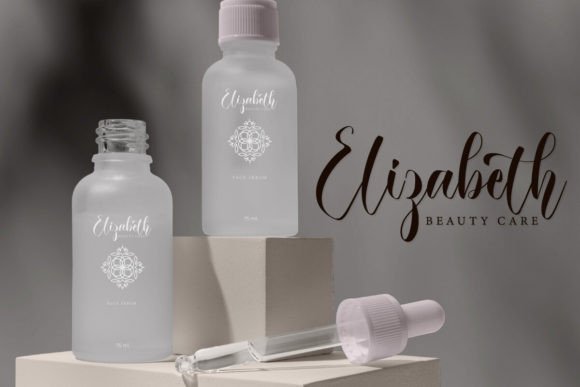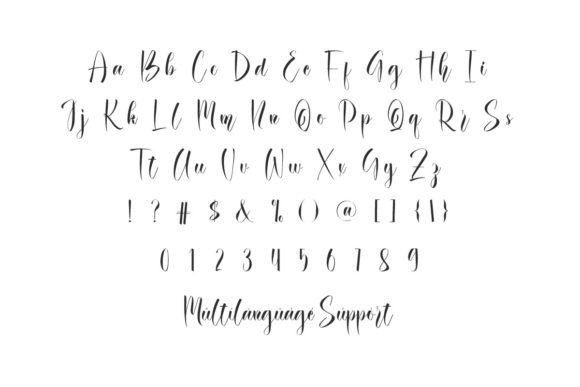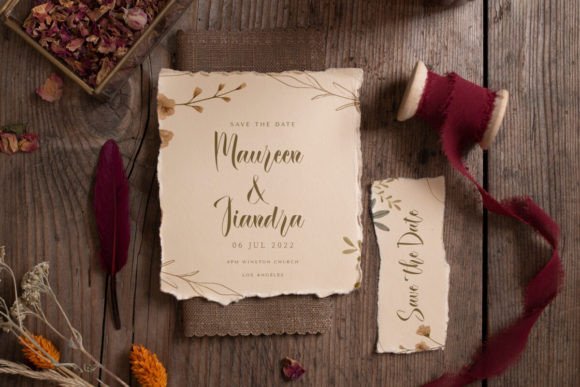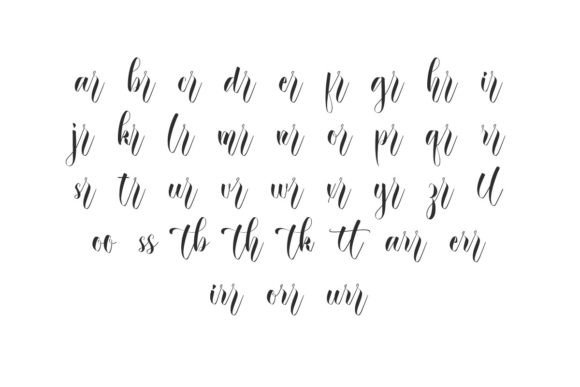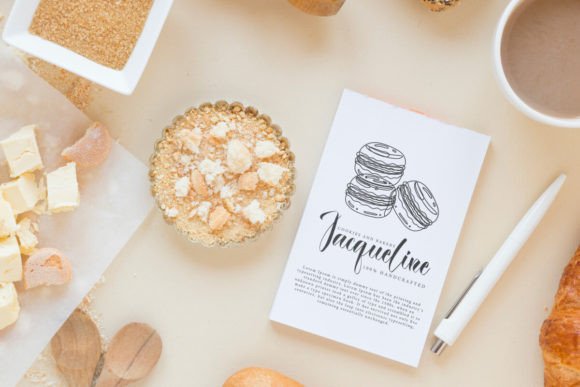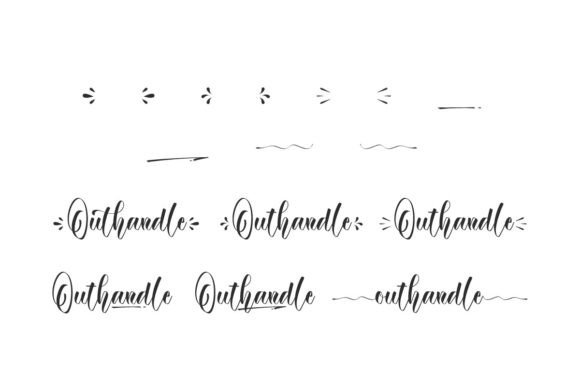
Introduction to Outhandle Font
The moment you’re searching for the perfect font to elevate your creative project is a crucial one. You want a design resource that will make your work stand out, evoke emotions, and leave a lasting impression. As you browse through countless options, you stumble upon Outhandle Font – a stunning calligraphy script font that will capture your attention and inspire your next design.
With its beautiful style and inviting aesthetic, Outhandle Font is a valuable addition to any designer’s toolkit. Whether you’re working on an advertisement, a bakery’s branding, or a wedding invitation, this font is sure to bring a touch of elegance and sophistication to your design. Plus, its transparent background makes it easy to customize and integrate into your project.
Key Features of Outhandle Font
- High-quality, professional design perfect for creative projects and designs.
- Includes 1 style, with a character set of 128 glyphs, making it suitable for a variety of design applications.
- Unique, modern aesthetic that adds a touch of sophistication to any design or creative project.
Honest Review: Outhandle Font
I recently stumbled upon the Outhandle Font while searching for a unique design resource for a creative project. I was excited to give it a try, and I must say, it exceeded my expectations.
- ✨ The font’s unique style and character set make it perfect for adding a touch of personality to your creative project.
However, I did encounter a few limitations while using the Outhandle Font.
- ⚠️ The font may not be suitable for large-scale text or headings, as it can become difficult to read at larger sizes.
- ⚠️ Some users may find the font’s unique style to be distracting or overwhelming in certain contexts.
Overall, I’m extremely impressed with the Outhandle Font. It’s a fantastic addition to any designer’s toolkit, and I highly recommend it for any creative project. Its high-quality design and transparent background make it a versatile and useful resource. Just be mindful of its limitations, and you’ll be golden!
For best results, use the Outhandle Font on a transparent background to create a clean and modern design. This font is ideal for creative projects that require a unique and eye-catching typography. Common use cases include logo designs, social media graphics, and promotional materials.
Is the Outhandle Font available with a transparent background?
Yes, the Outhandle Font is available with a transparent background, making it ideal for use on various design elements, including logos, icons, and graphics. The transparent background allows for seamless integration with other design elements, giving you more creative freedom in your design projects.